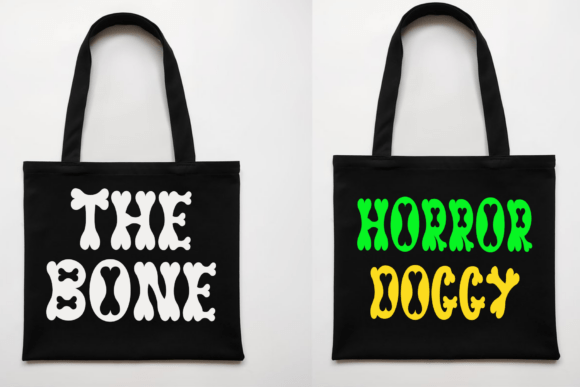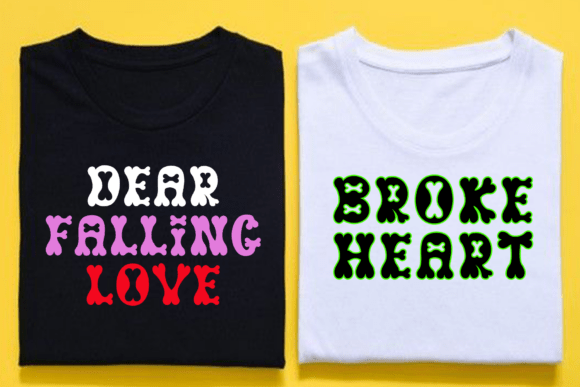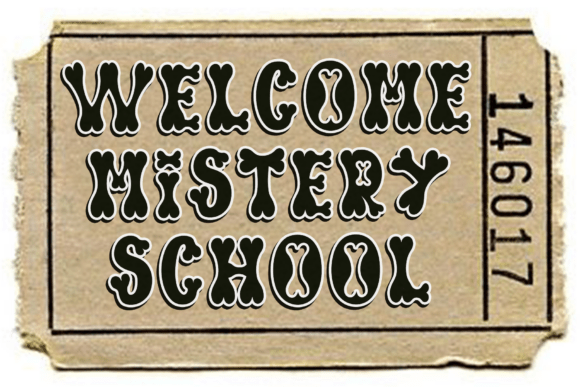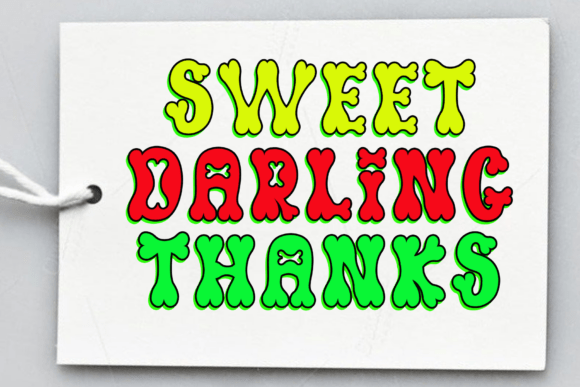
Bones Font: Elevate Your Designs with a Casual and Neat Display Font
In the world of typography, finding the right font can make all the difference in bringing your creative projects to life. If you’re on the hunt for a font that exudes warmth, clarity, and approachability, look no further than Bones Font. This casual and neat display font is designed to breathe life into your designs, making it an excellent choice for branding, headlines, and everyday designs.
The Characteristics of Bones Font
Bones Font boasts a clean structure and an approachable style that sets it apart from other display fonts. Its balanced letterforms are crafted to provide exceptional readability without sacrificing charm. This harmonious blend of form and function makes Bones Font an excellent addition to any design project, allowing every message to feel genuine and inviting.
Key Features of Bones Font
- Clean Structure: Bones Font features a clean and organized structure that ensures clarity in any design.
- Approachable Style: The font’s friendly and approachable style makes it perfect for engaging audiences.
- Balanced Letterforms: Each letter is carefully crafted to provide readability and charm, making your text both easy to read and visually appealing.
- Versatility: Bones Font is versatile and can be used for a variety of design projects, from branding and headlines to everyday designs.
Why Choose Bones Font?
Choosing Bones Font for your design projects comes with numerous benefits. Its casual and neat appearance ensures that your designs stand out with a touch of warmth and personality. Here are some compelling reasons to consider:
- Enhances Readability: The font’s design prioritizes readability, ensuring that your message is communicated effectively.
- Brings Warmth to Designs: Bones Font adds a layer of warmth, making your designs feel more approachable and engaging.
- Perfect for Branding: Its unique style and charm make it an excellent choice for branding projects that require a distinctive touch.
- Easy to Integrate: Bones Font can be easily integrated into various design projects, making it a versatile addition to your typography collection.
Using Bones Font in Design Projects
Incorporating Bones Font into your design workflow is straightforward. Whether you’re working on a branding project, creating headlines for a website, or designing everyday materials, Bones Font can elevate your work with its distinctive style. Here are some tips on how to make the most of Bones Font:
- Pair with Complementary Fonts: Combine Bones Font with other fonts that complement its style to create visually appealing designs.
- Experiment with Sizes and Weights: Play around with different sizes and weights of Bones Font to add depth and hierarchy to your designs.
- Consider the Context: Tailor your use of Bones Font to fit the context of your project, ensuring it aligns with the overall aesthetic and message.
Bones Font is a valuable addition to any designer’s toolkit. Its casual and neat display, combined with its warmth and clarity, makes it an excellent choice for a wide range of design projects. By incorporating Bones Font into your workflow, you can create designs that are not only visually appealing but also engaging and genuine. Whether you’re working on branding, headlines, or everyday designs, Bones Font is sure to bring a touch of personality and charm to your work.